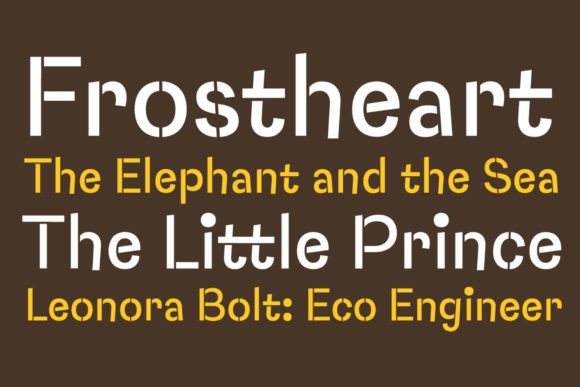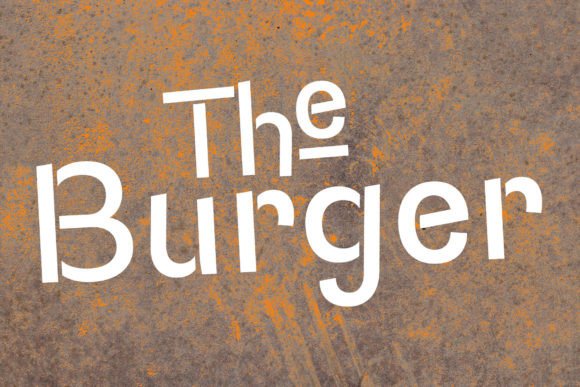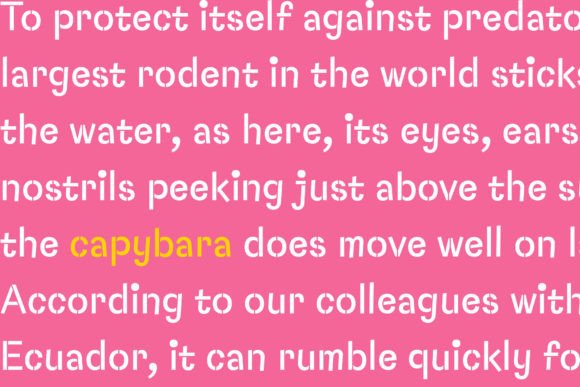
Capybara Stencil is a playful and informal typeface designed in a stencil style, making it great for kids’ titles and logos. It includes the Cyrillic alphabet, as well as alternative characters and ligatures for creative design options. Perfect for projects aimed at youth and children.